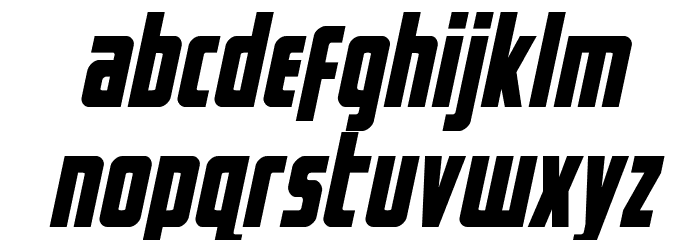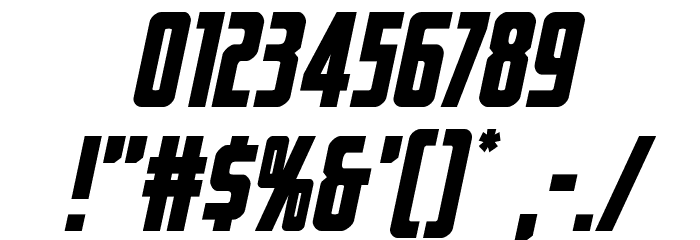
Captain Canaveral Italic Font
This font features a bold and dynamic italic style with a strong presence. The characters are slightly condensed, giving it a compact and powerful look. The strokes are thick and consistent, providing a sense of stability and strength. The slanted design adds a sense of motion and energy, making it ideal for attention-grabbing headlines or impactful logos. The uppercase and lowercase letters maintain a uniform style, ensuring readability while conveying a modern and assertive tone. Numbers and special characters are designed with the same boldness, ensuring consistency across all text elements.
A bold, italic font with a dynamic and compact style, perfect for impactful headlines.
- Font: Captain Canaveral Italic
- Proposed Projects: Ideal for sports branding, dynamic posters, modern advertising, and bold logo designs.